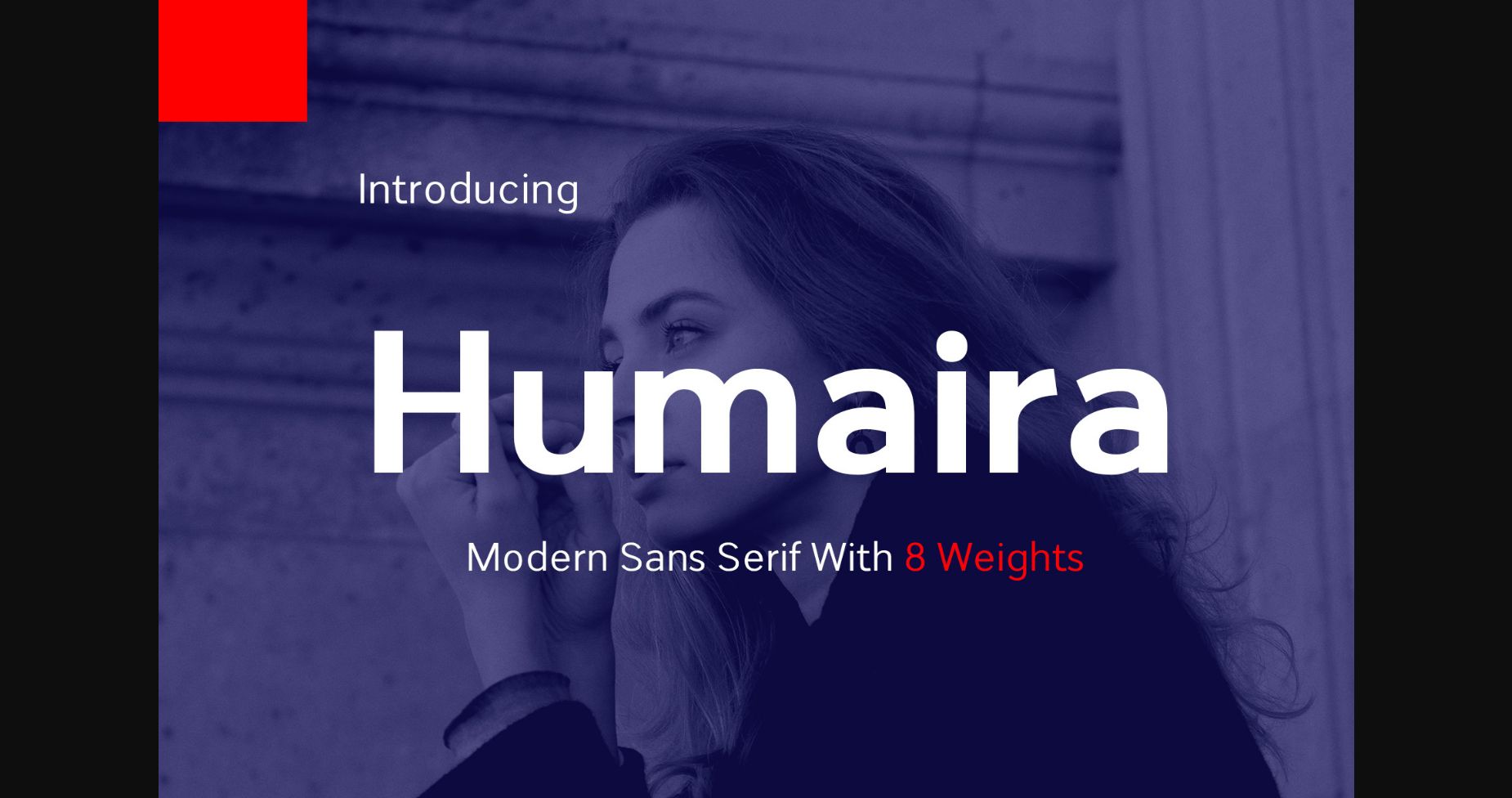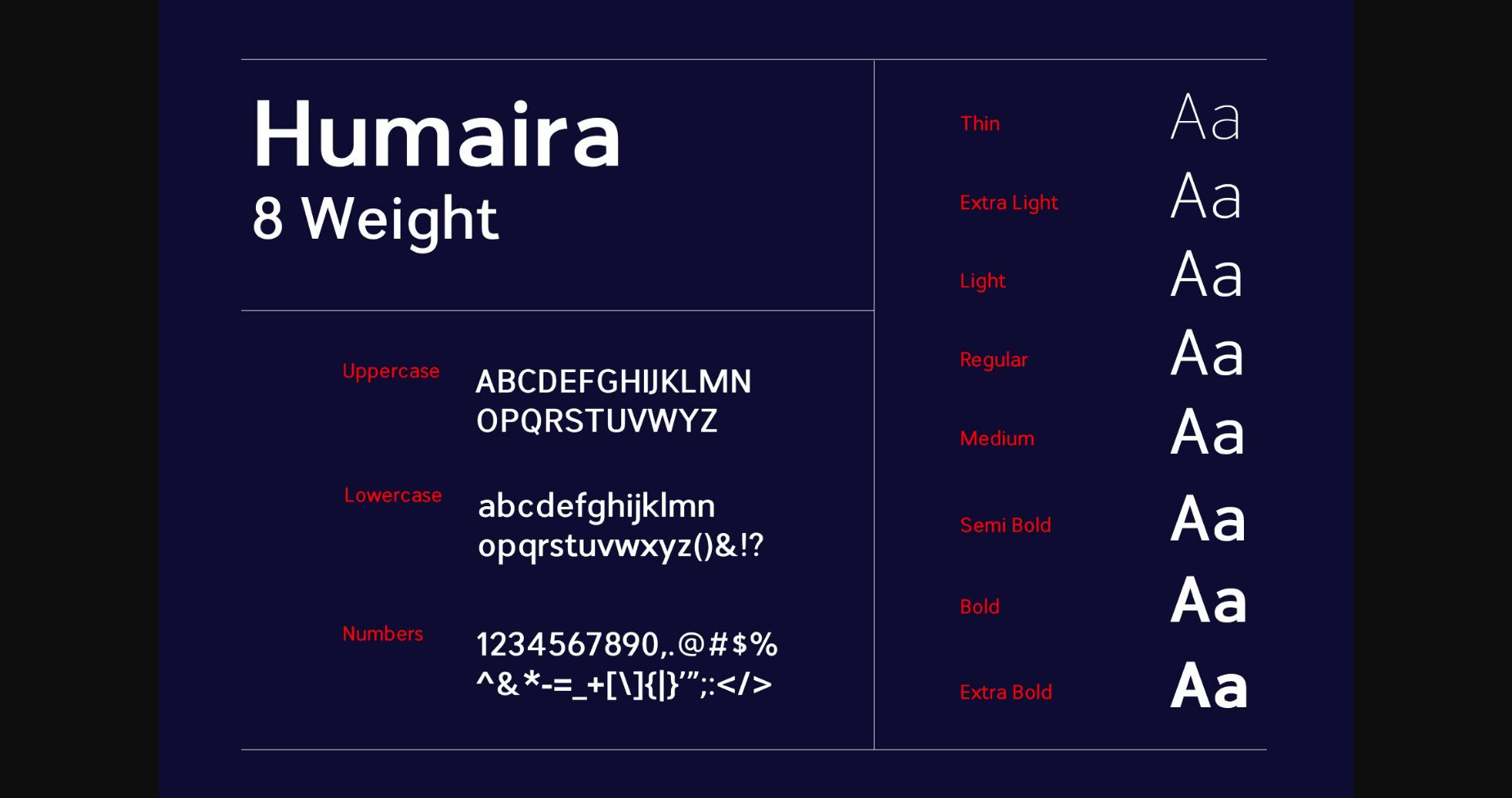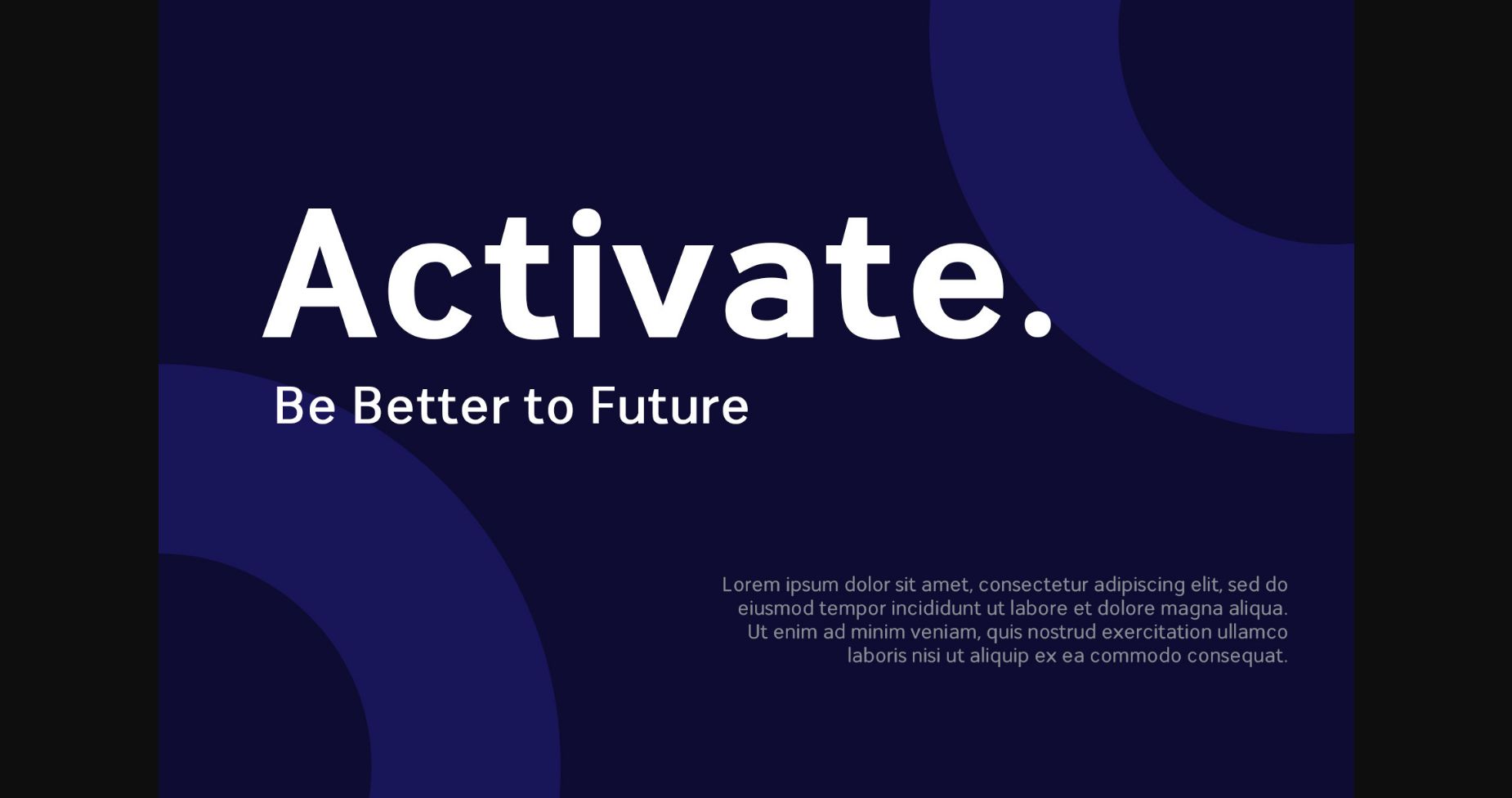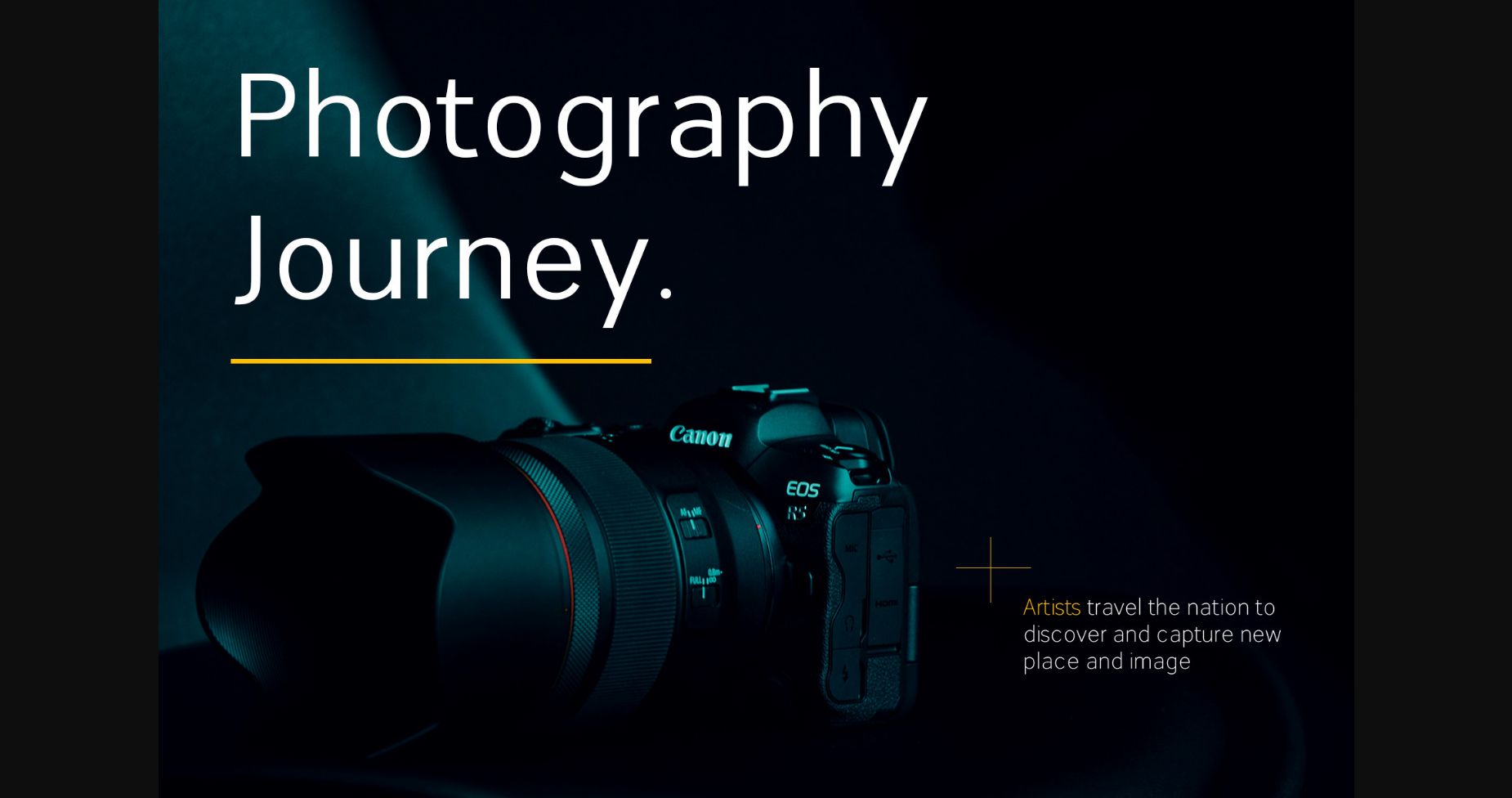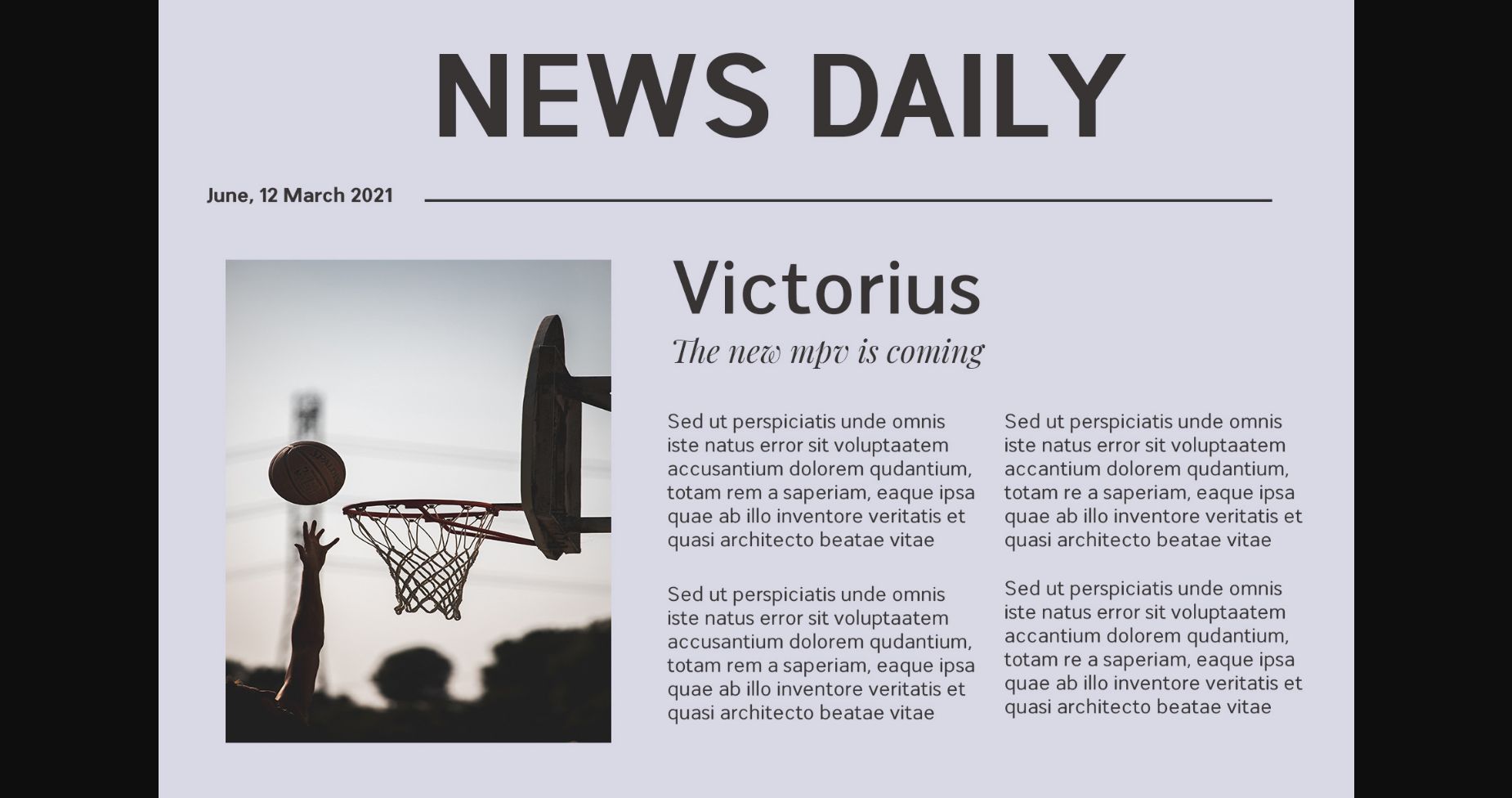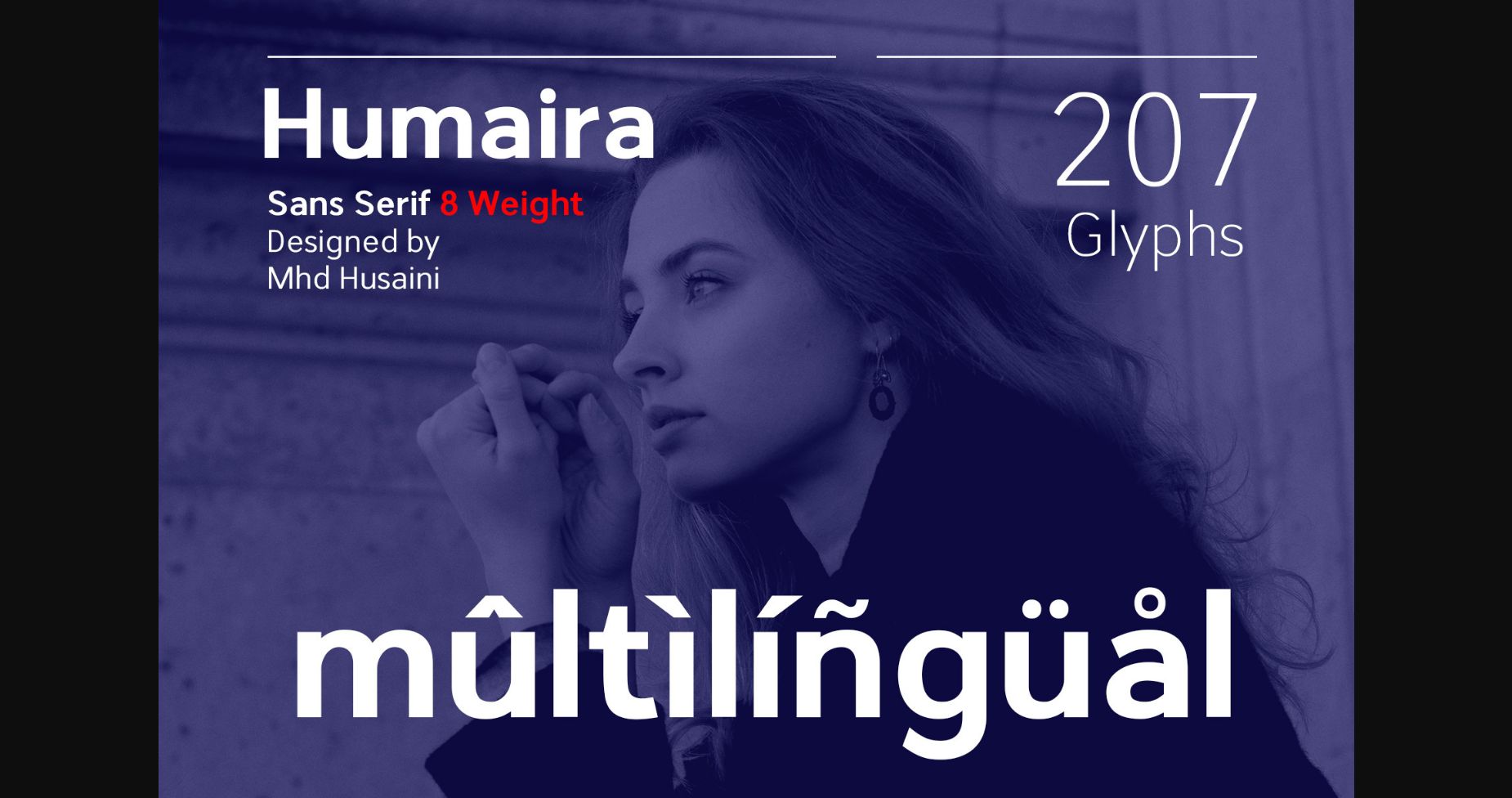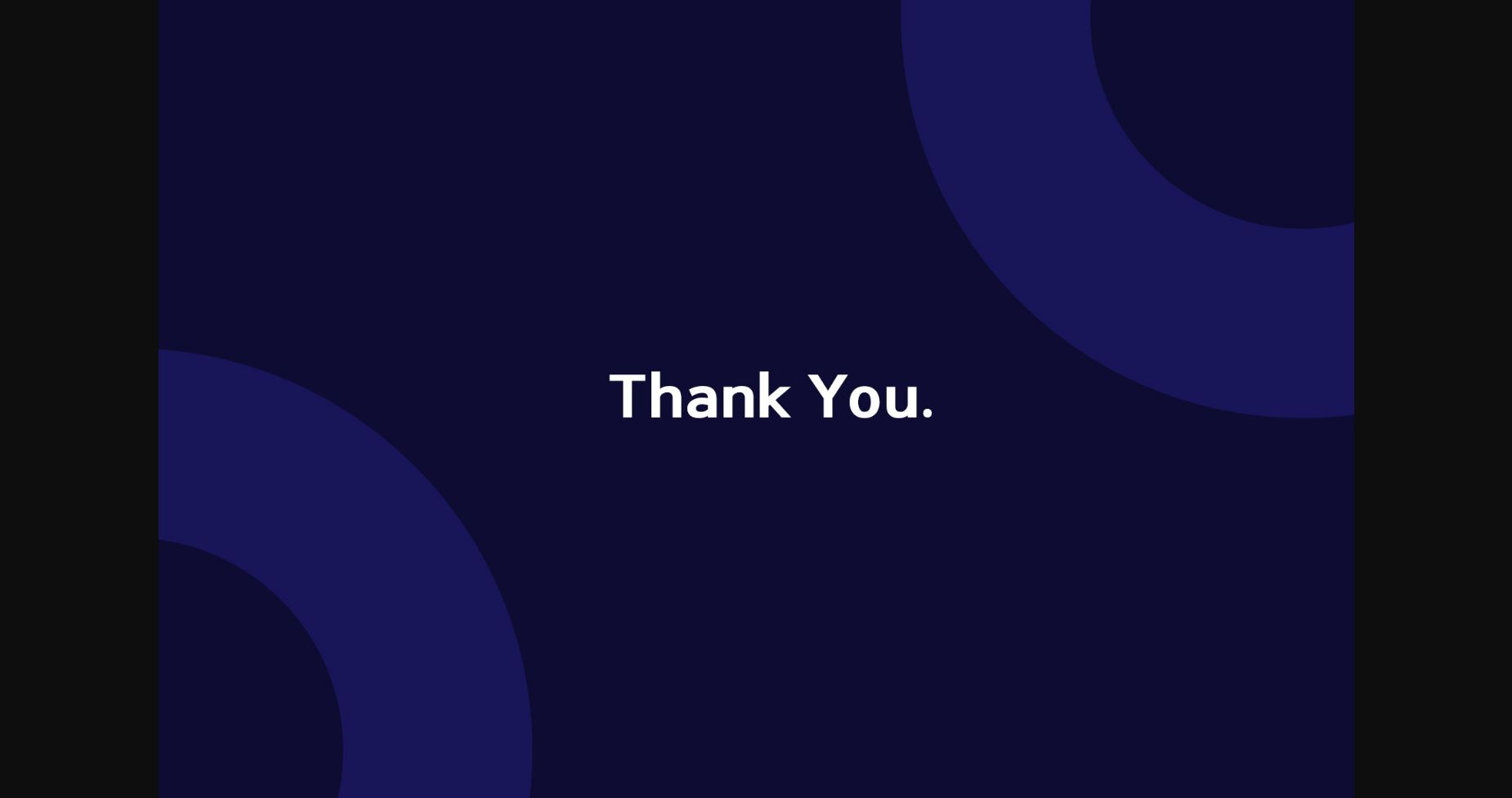
Humaira Font
About Humaira Font
Humaira is a modern sans serif font that embodies elegance and charm in every character. It is perfect for luxury logos, branding, classy editorial designs, women’s magazines, cosmetic brand, promotional designs, the fashion industry, and more.